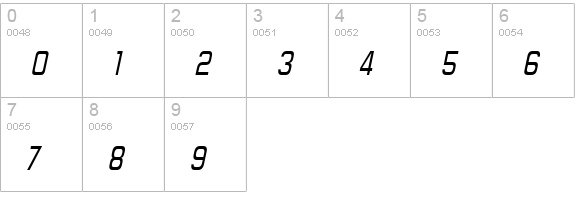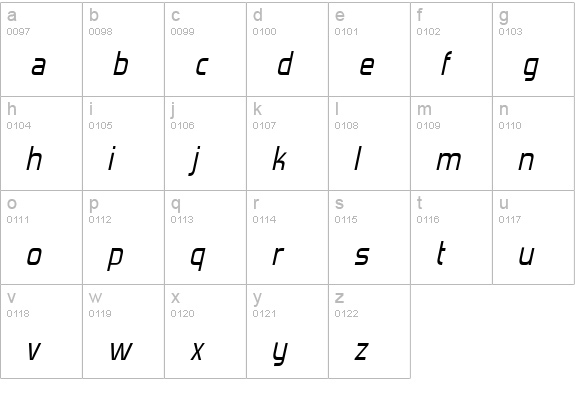
Forgotten Futurist Italic is a distinctive, italic variant in the Forgotten typeface family \xE2\x80\x94 well suited to design and typography projects.
Forgotten Futurist Italic font is a captivating and modern typeface that exudes a sense of futuristic elegance. Its sleek and stylish design features unique, slanted letterforms that give off a sense of movement and innovation. The italicized version of the Forgotten Futurist font adds a touch of sophistication and flair to any design project. This font is perfect for creating eye-catching headlines, modern branding, and sleek editorial designs. Whether you're working on a digital project or a print publication, Forgotten Futurist Italic will bring a contemporary and dynamic look to your work. Best of all, Forgotten Futurist Italic font is available for free download at FontsMarket.com. Don't miss out on the opportunity to add this versatile and striking typeface to your font collection today!